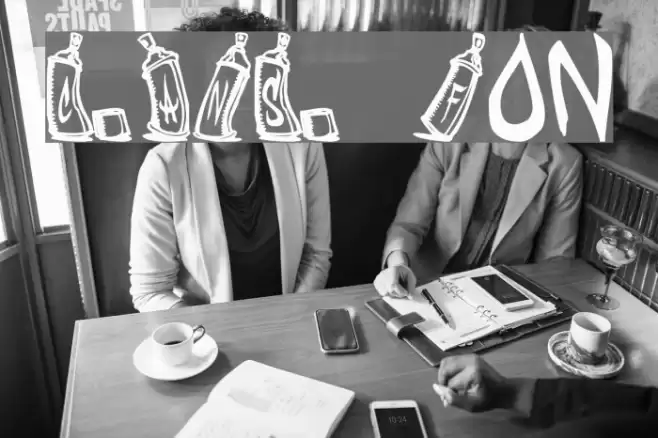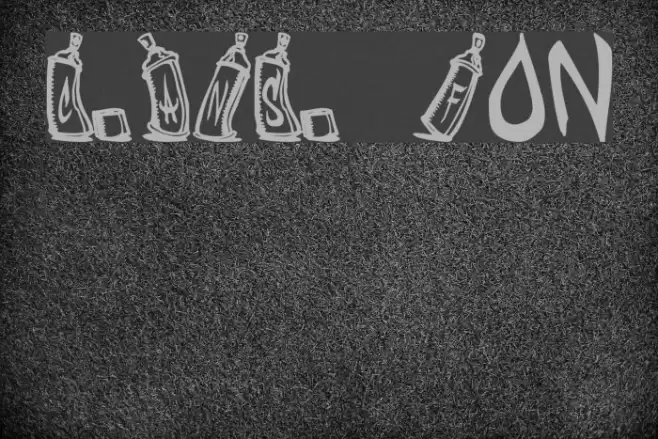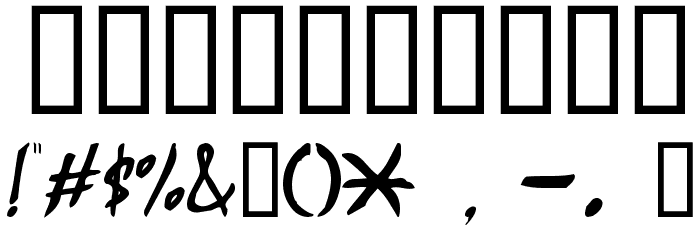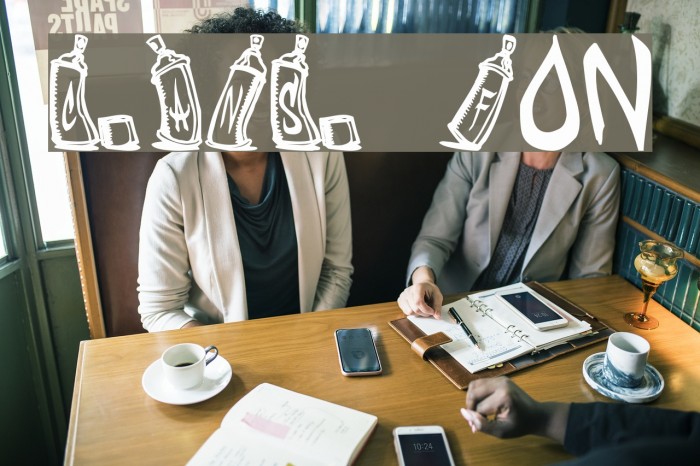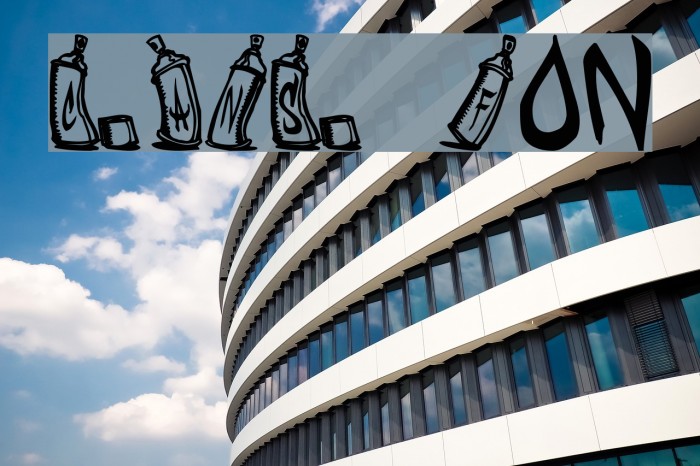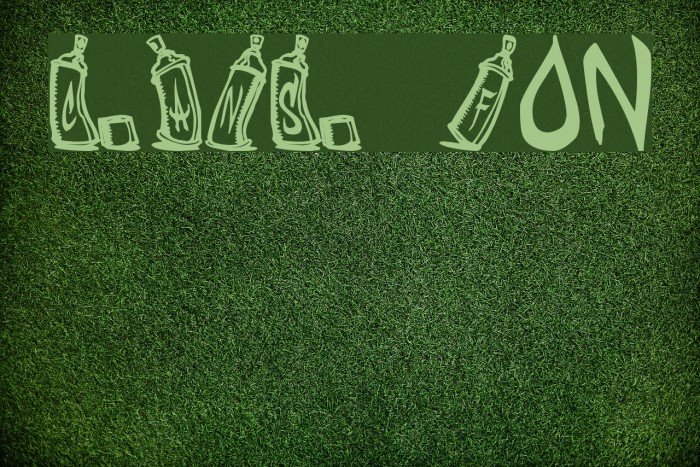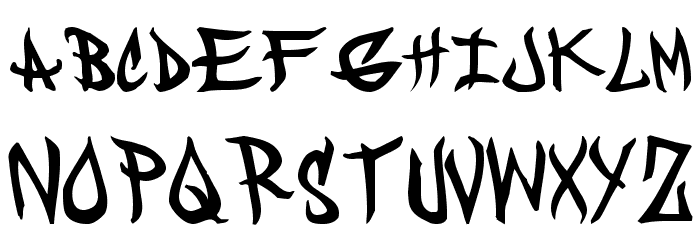
CANS Font
CANS Description
This font features a bold, graffiti-inspired style that mimics the look of spray-painted letters. The uppercase letters are sharp and angular, with exaggerated curves and points that give them a dynamic, energetic feel. The lowercase letters maintain this edgy aesthetic, offering a cohesive look across different text cases. The numbers and special characters are equally stylized, ensuring consistency throughout. This font is perfect for projects that require a rebellious or urban vibe, such as streetwear branding, music album covers, or event posters. Its unique design makes it stand out, capturing attention with its bold strokes and artistic flair.
A bold, graffiti-inspired font with sharp, angular letters and a dynamic, urban style from Decorative fonts.
- Proposed Projects: Ideal for streetwear branding, music album covers, event posters, and urban-themed designs.
- Overall Style: Modern, Urban, Graffiti